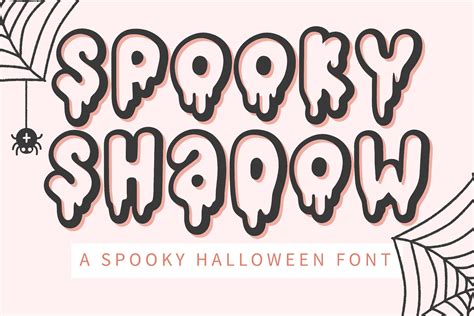
11 Top Free Halloween Fonts from Spooky to Silly
Microsoft Word Spooky Font. Perfect for your webpages, flyers, posters, and more. Web unleash the halloween spirit with these spooky fonts!
Web unleash the halloween spirit with these spooky fonts! Perfect for your webpages, flyers, posters, and more.
Web unleash the halloween spirit with these spooky fonts! Perfect for your webpages, flyers, posters, and more. Web unleash the halloween spirit with these spooky fonts!